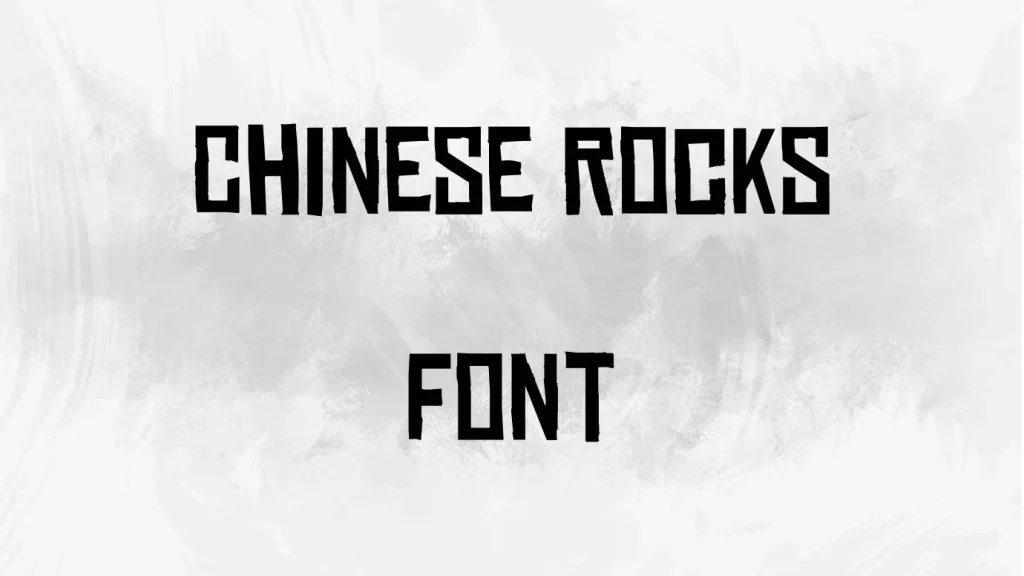
The letters of this font demonstrate its versatility each letter has been created beautifully. This style works best in Canva to create amazing designs for
Chinese Rocks Font is designed by Typodermic Fonts. It is a cool typeface that is appropriate for a variety of projects. This font can create a beautiful design for your project and it is incredibly easy to use.
The letters of this font demonstrate its versatility each letter has been created beautifully. This style works best in Canva to create amazing designs for projects. Therefore, the font letters didn't contain any errors. With an online generator tool, you can turn simple text into amazing designs.
It can create unique designs by using the generation tool facility, to convert the text into a beautiful design. Because of its unique and fashionable appearance, you can use this typeface to generate stylish designs. Due to its flawless style, Best Possible Ways to Use Chinese Rocks Font
You can use this beautiful design for creating websites/posts. This elegant typeface may also be used for branding, graphic designs, covers, and poster designs, you can also create business cards, logos, and product designs with its clean and elegant textures.
This typeface works well for social media titles, names, and home décor designs. This typeface may be used by designers to create book covers, animated movie posters, comic magazines, etc. If you want to make your design project more attractive then I suggest combining this font with another unique typeface such as pluto sans font.
There are several uses of this typeface to design various projects. A beautiful typeface can also be used to design banner designs, logos, wall paintings, and many other projects. Besides product titles, this typeface is also perfect for designing beautiful logo designs. This typeface has rare and unique glyphs.
Who is the designer of Chinese Rocks Font?
Ray Larabie is the brilliant mind designer behind the creation of this typeface and published by Typodermic.
Can I use the Chinese Rocks typeface for Logos designs?
Absolutely This typeface is well famed for use in different types of logo designs.
How many styles are available in Chinese Rocks typeface?
This stunning typeface contains a total of 16 classic and special styles. A few styles are regular, bold, condensed, and others.